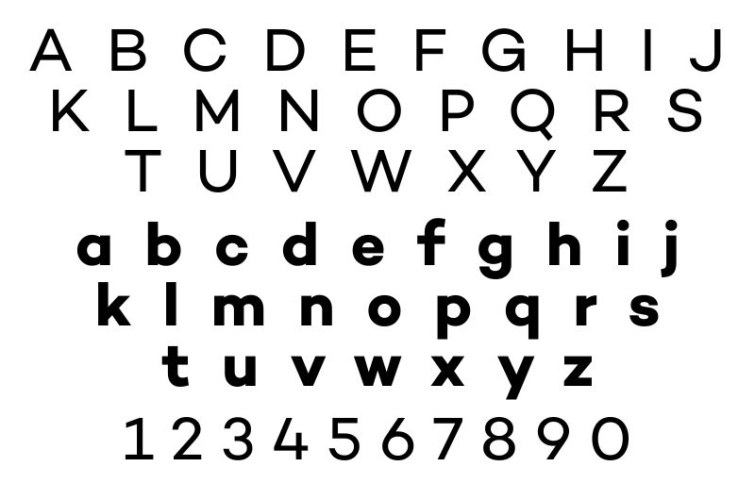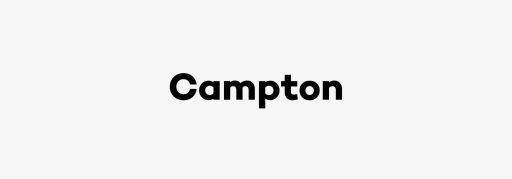
Campton Font
Panton is a modern sans serif font family with clean geometry and a strong visual style. Its rounded corners and smooth curves give designs a friendly and contemporary look. In addition, the wide range of weights makes it flexible for many uses. Designers choose Panton for branding, headlines, websites, and packaging because it stays bold and clear in every size. As a result, it works well in both digital and print projects.
Detail Information Font Name Campton Font Style Sans Serif Category Geometric Sans Typeface Designer René Bieder File Formats TTF, OTF (varies by source) Use Case Branding, packaging, headlines, websites, marketing License Free for personal use only Commercial Use Not allowed without permission Design Features Simple geometry, smooth structure, modern and friendly toneCampton Font is a Sans Serif Fonts font that brings a professional and versatile look to your projects. Panton is a modern sans serif font family with clean geometry and a strong visual style.